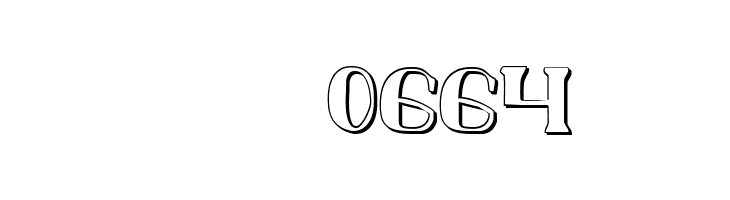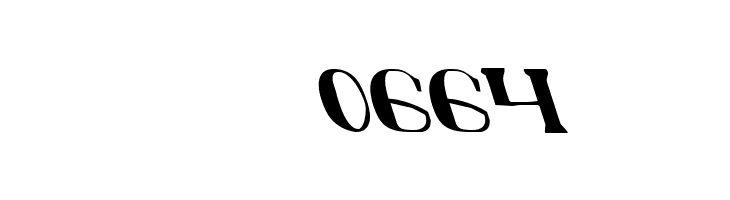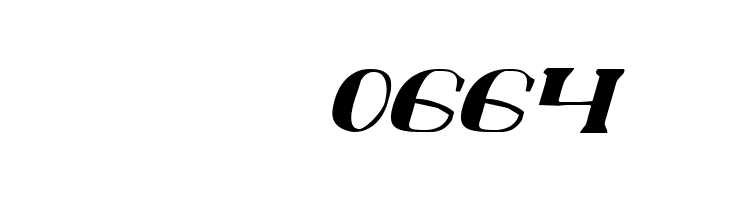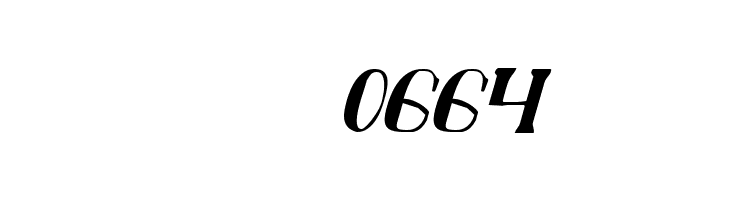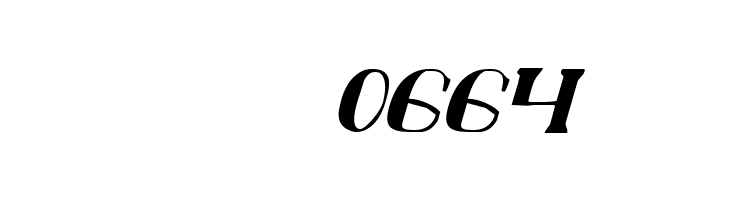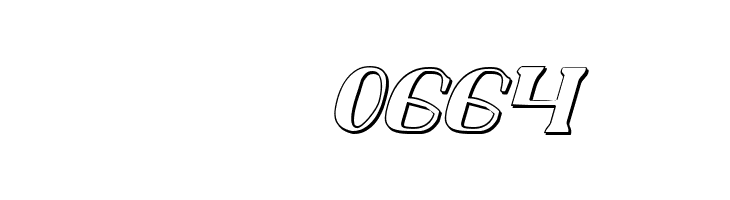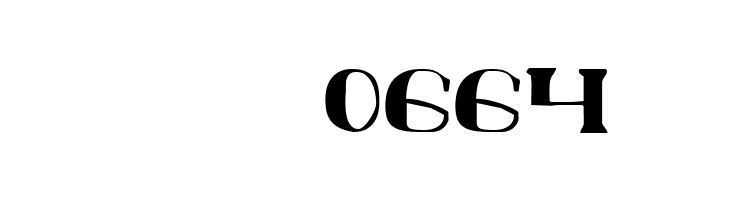
• Chardin Doihle Bold Italic
A bold, italicized font with a dynamic and robust style.
• Chardin Doihle Condensed
A bold, condensed font with high contrast and a vintage-modern blend.
• Chardin Doihle Condensed Italic
A sleek, italic, and condensed font with bold strokes and a modern style.
• Chardin Doihle Expanded
A bold, expanded font with a modern, dynamic style.
• Chardin Doihle Expanded Italic
A dynamic, expanded italic font with bold strokes and moderate contrast.
• Chardin Doihle Italic
A dynamic and elegant italic font with moderate contrast and a stylish appearance.
• Chardin Doihle Leftalic
A bold, left-slanted font with high contrast and distinctive serifs.
• Chardin Doihle Shadow
A bold, shadowed font with a modern, three-dimensional appearance.
• Chardin Doihle Shadow Italic
A shadowed, italicized font with a three-dimensional effect.
• Chardons
A dynamic and elegant script font with flowing cursive letters.
• Chardons 2
A flowing, elegant script font with a sophisticated and stylish appearance.
• Chardons Brush
A dynamic brush-style font with fluid, cursive strokes and varying thickness.
• Chardons_PersonalUseOnly
A dynamic and elegant script font with flowing, cursive letterforms.
• Charlemagne
• Charlie
A playful, handwritten font with dynamic strokes and a lively appearance.
• Charlotte Matthew Free Regular
A flowing, elegant script font with medium contrast and interconnected letters.
• Charm Holders LT
• Charmeleon Free
A lively and expressive handwritten font with fluid, interconnected strokes.
• Charms
A decorative font with charming symbols like stars and hearts in bold outlines.
• CharmsOT
A playful decorative font with bold symbols like stars and hearts enclosed in shapes.
• Charnel House
A decorative font with gothic and macabre elements, featuring skulls and bones.
• Charoeys Free